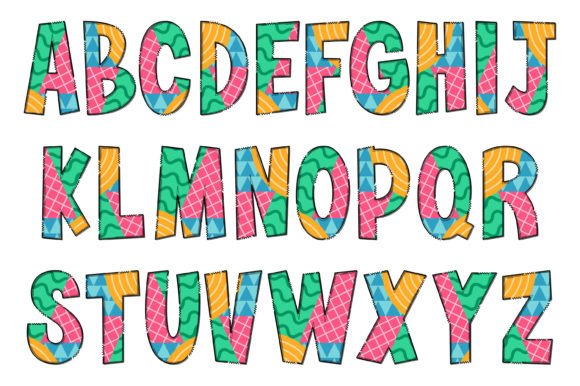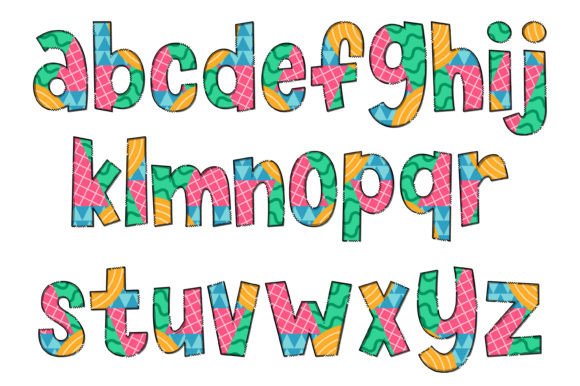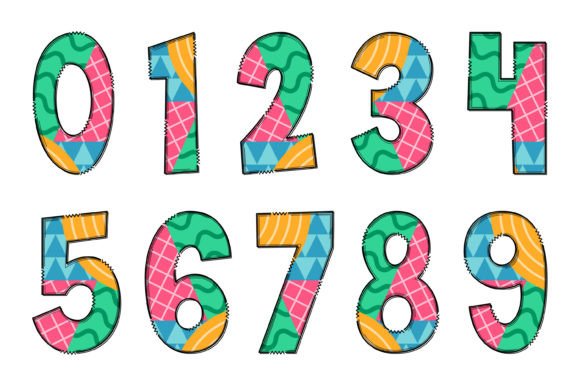
The Power of Playful Typography: A Deep Dive into Creative Geometric Font
I’ll never forget the time I was working on a children’s book design project, and my client asked me to create a custom font that would make their story feel more engaging and youthful. I spent hours scouring the internet for the perfect font, but nothing seemed quite right. That’s when I stumbled upon the Creative Geometric Font, and it completely transformed my design. In this article, I’ll share my experience with this whimsical font, its features, and how to make the most of it in your designs.
What is Creative Geometric Font?
Creative Geometric Font is a vibrant, playful font perfect for designs that require a touch of artistic flair. Its geometric shapes and colorful appearance make it an excellent choice for children’s books, posters, invitations, greeting cards, and more. This font is an OpenType-SVG file, compatible with software like PhotoShop, Illustrator, Silhouette, and Inkscape.
- ✨ Whimsical and colorful design that’s sure to capture young audiences’ attention
- ✅ Easy to read, even at smaller font sizes
- 🎨 OpenType features and glyphs allow for endless creative possibilities
The Designer Inspiration Behind Creative Geometric Font
Creative Geometric Font was designed with the intention of bringing a playful, artistic feel to children’s designs. The font’s creator drew inspiration from classic children’s books and toys, aiming to craft a font that would be both fun and engaging. The result is a font that’s perfect for designers looking to add a touch of whimsy to their work.
| Font Name | Creative Geometric Font |
| Author | Imagination Switch |
| What are some common uses for Creative Geometric Font? | Creative Geometric Font is perfect for children’s books, posters, invitations, greeting cards, and more. |